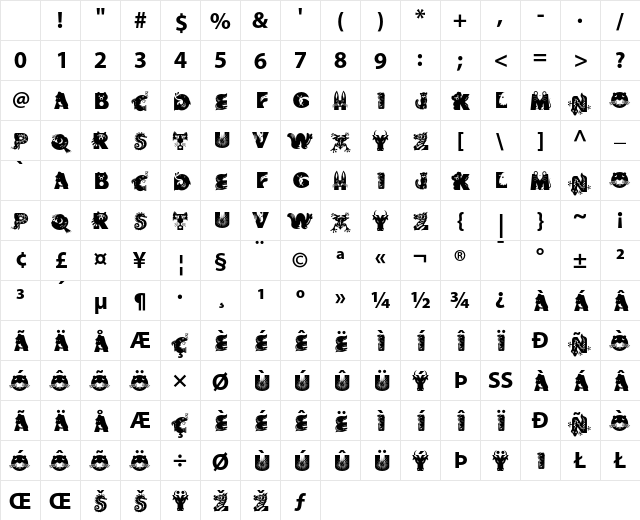
Complete Critter Regular glyph index. Displaying only characters natively supported by Critter Regular font.
Critter is a composed and adaptable typeface that performs quietly and consistently across a wide range of design contexts.